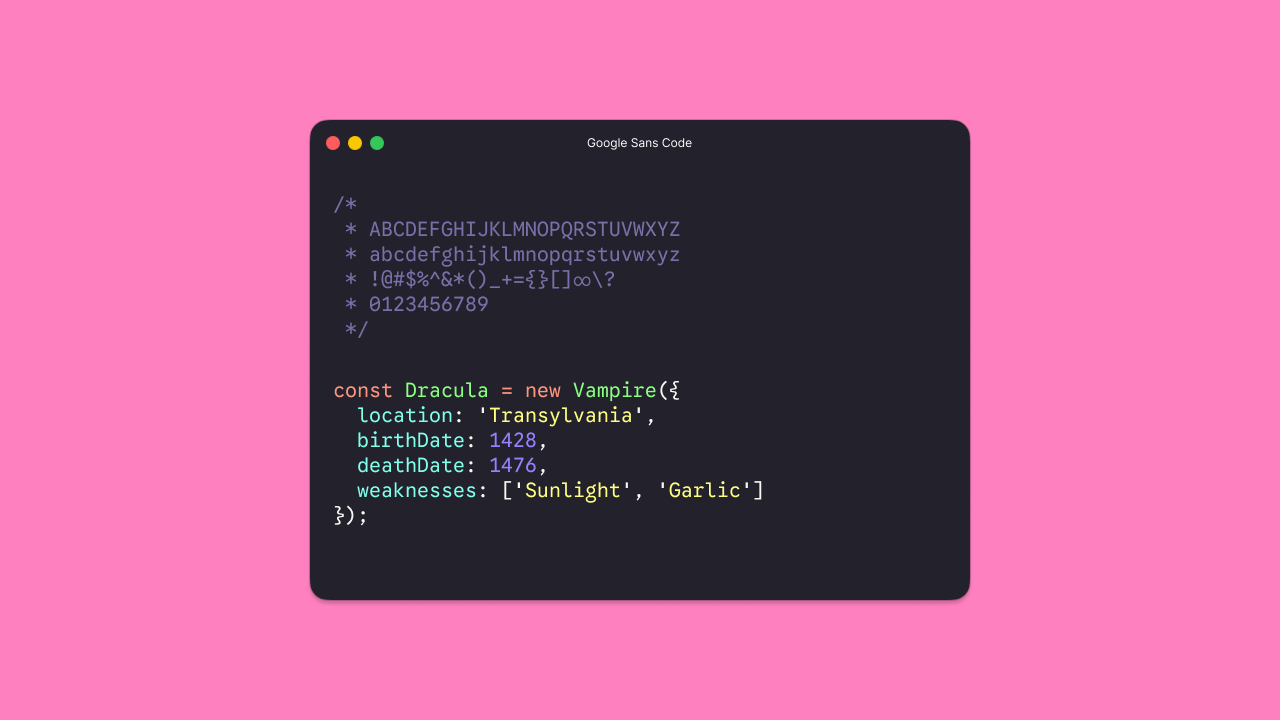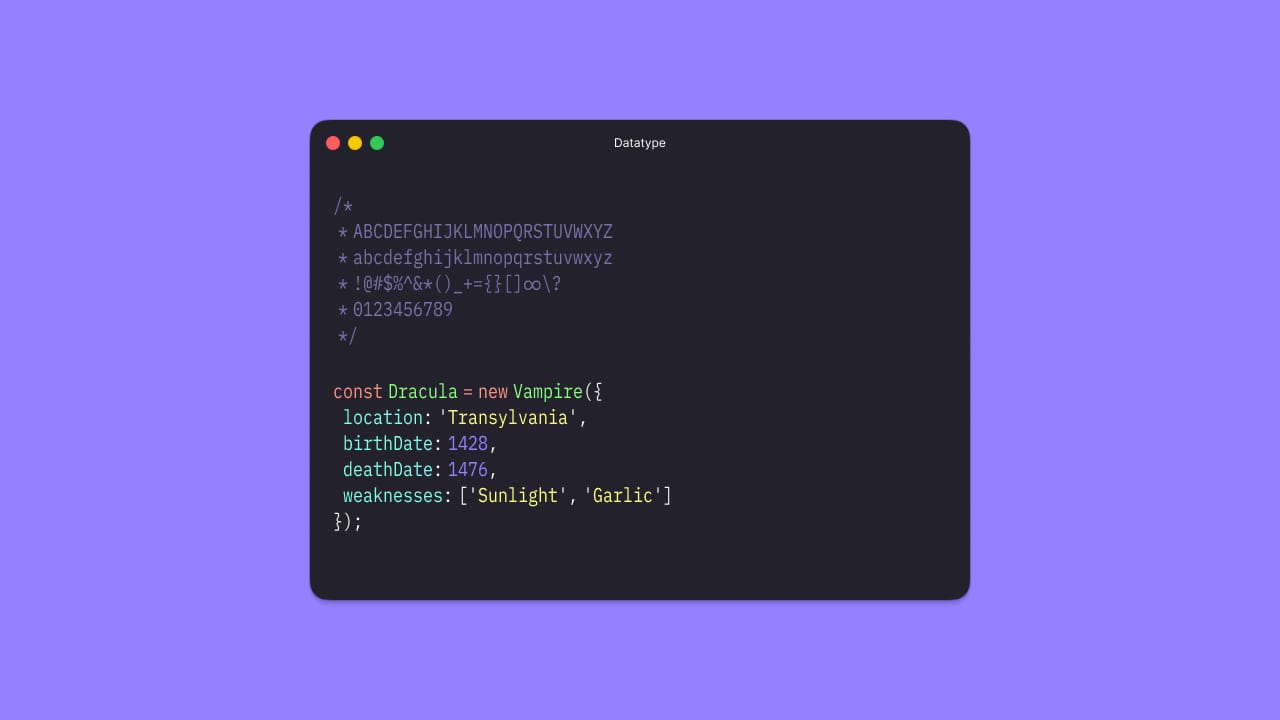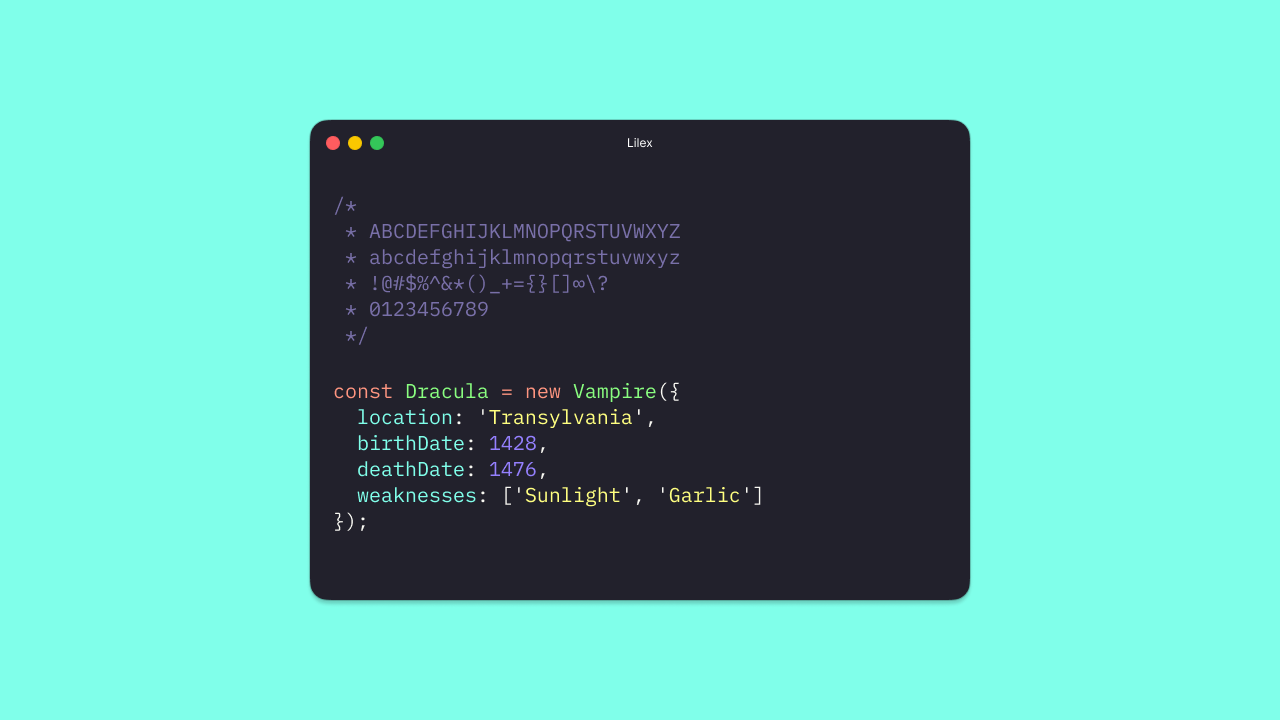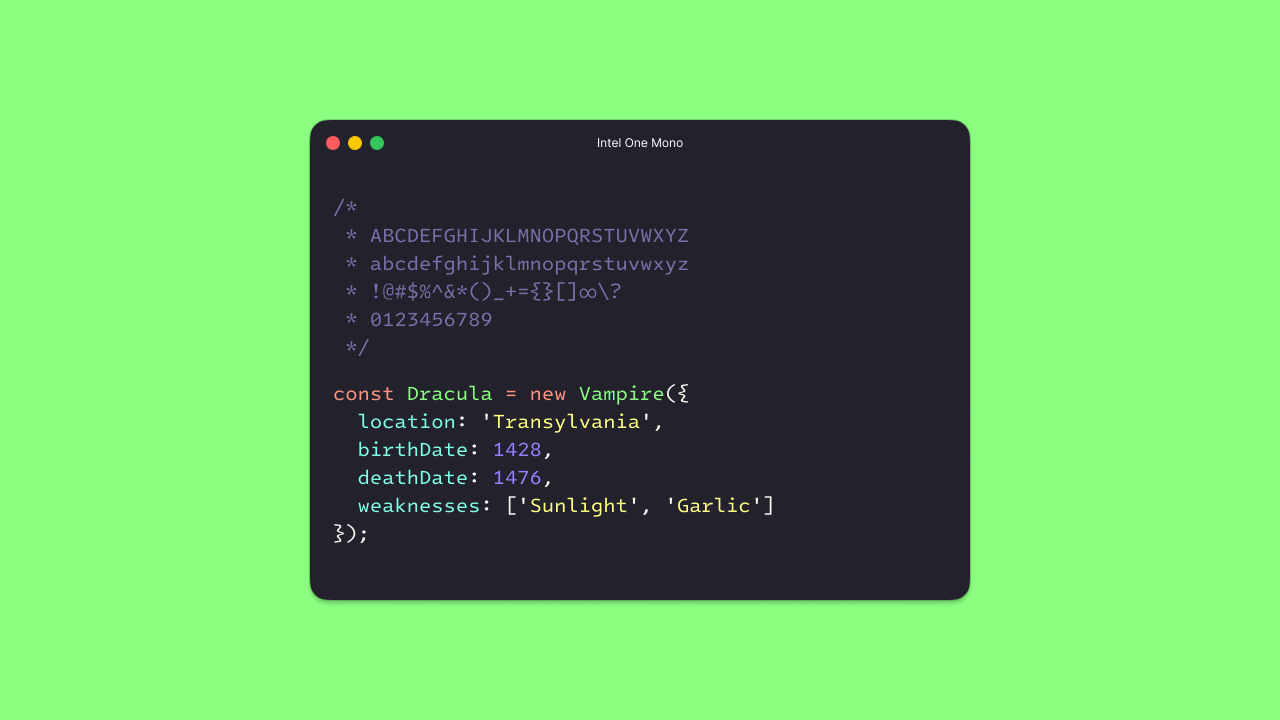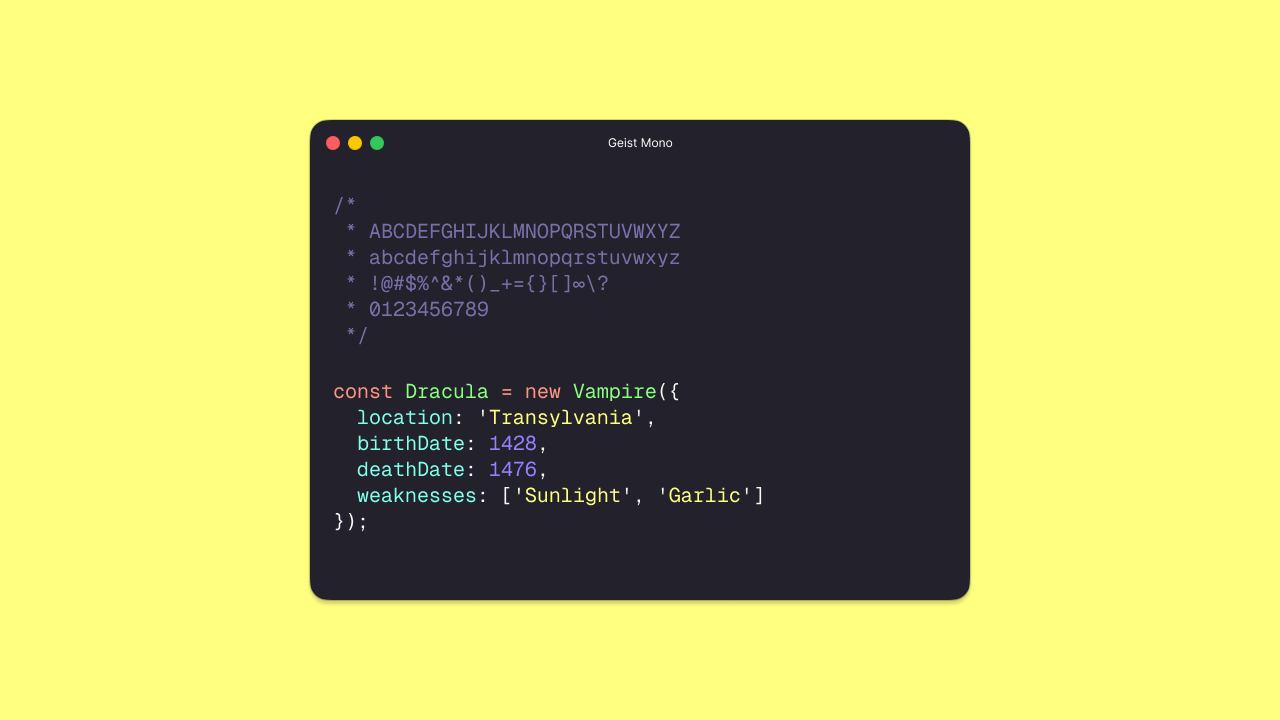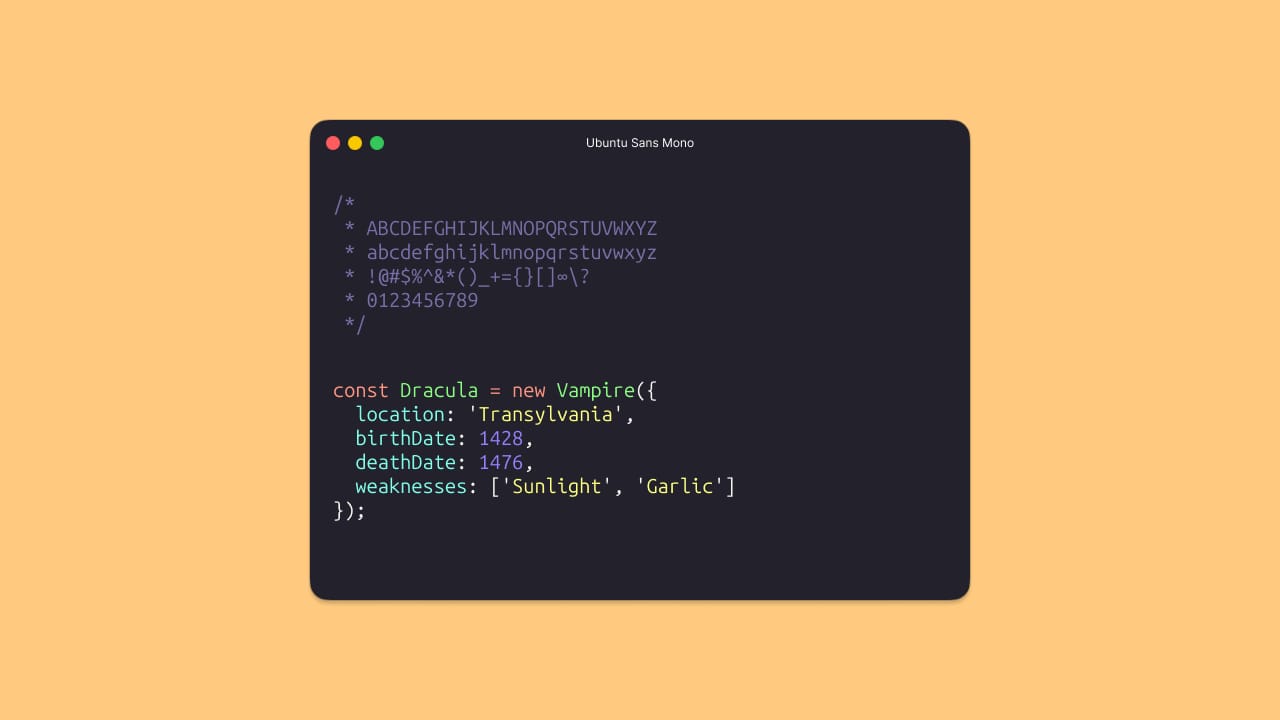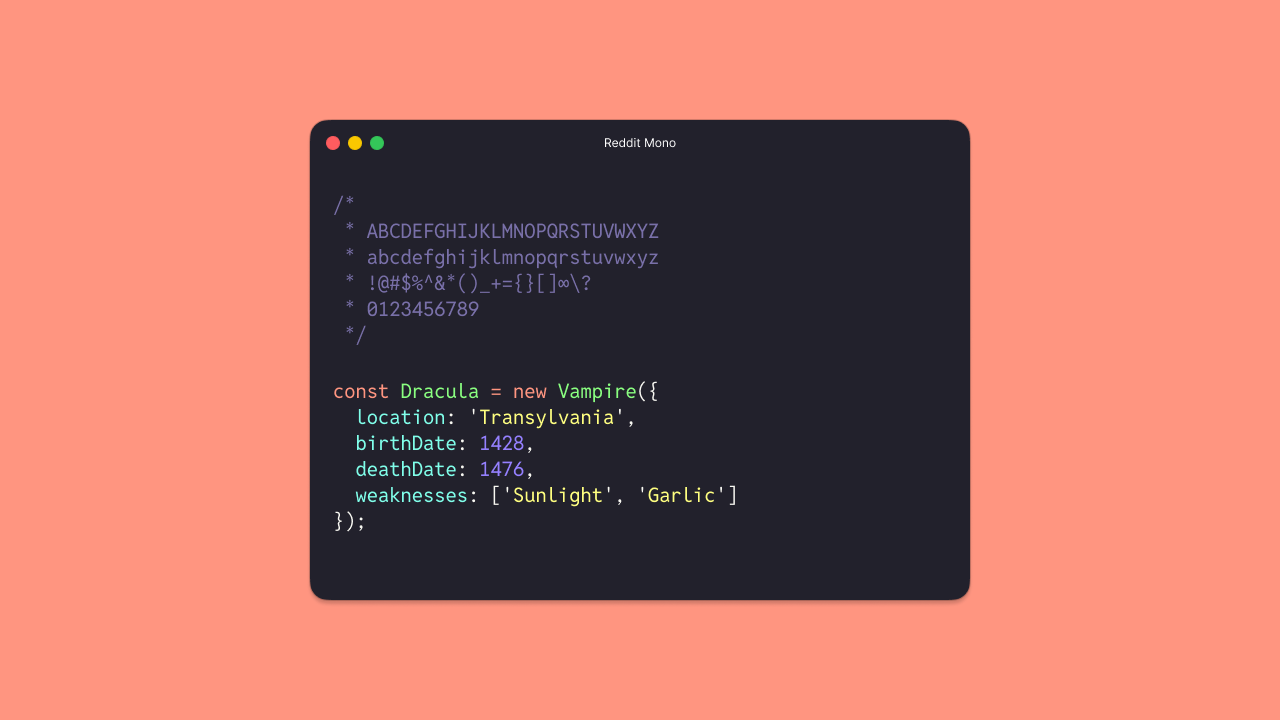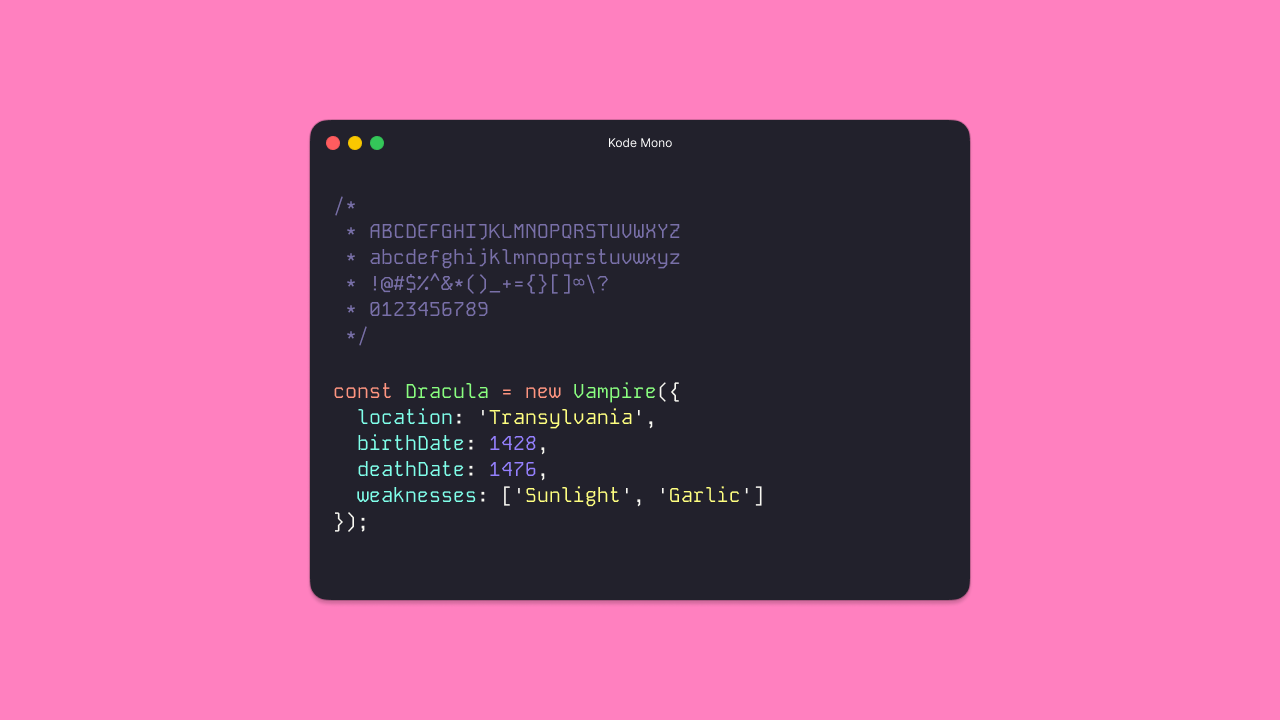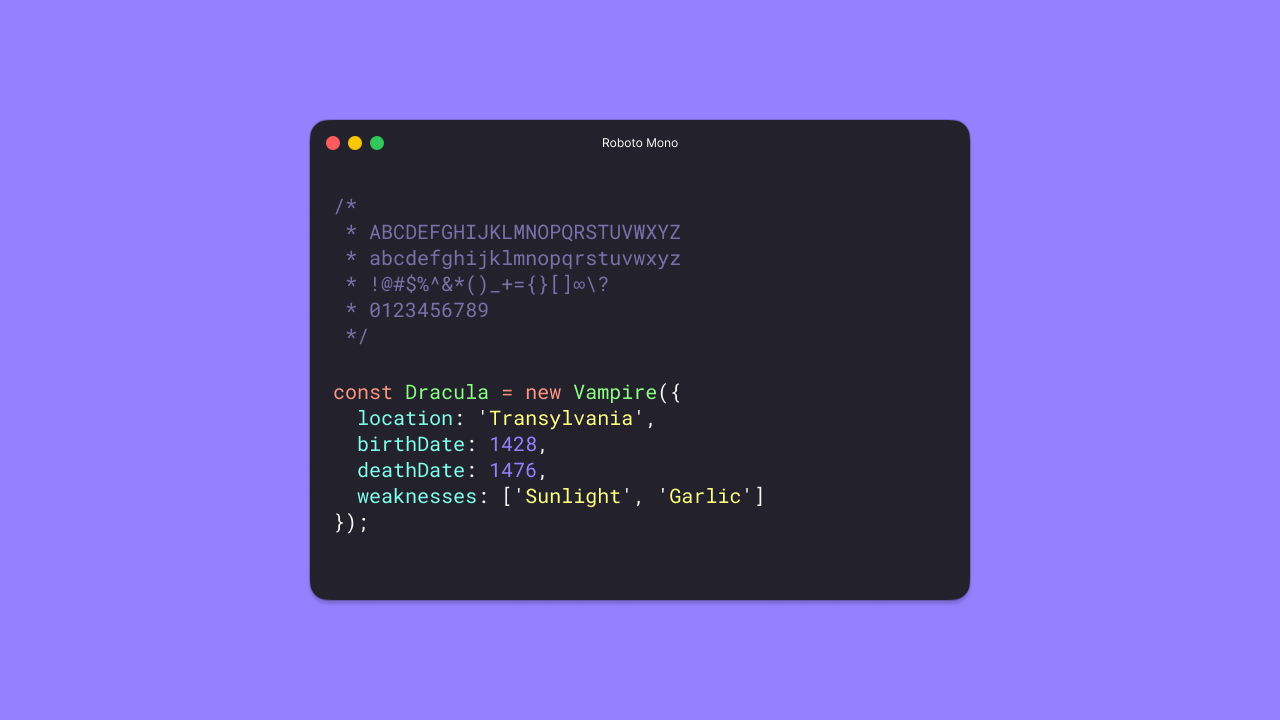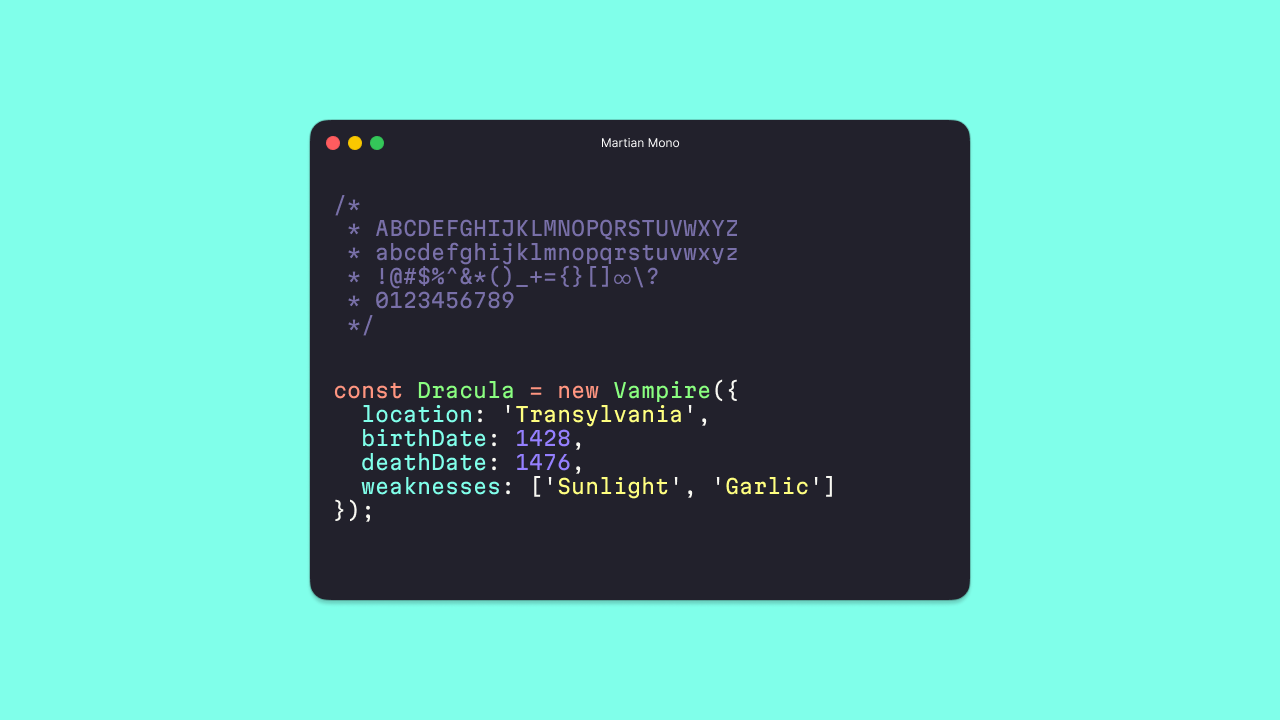
14 Best Fonts for Programming in 2026
Five years ago we put together 14 Best Free Fonts for Programming. Here are 14 more free variable monospace fonts for programming — ready for your editors, IDEs, terminals, and others.
§1. Google Sans Code
Google built this one for its own products — Gemini, Android Studio, and beyond. The letterforms stay crisp at small sizes, with open counters and clear distinction between characters that usually get confused. It is one of the few coding fonts with a dedicated monospace axis on top of weight, so you can fine-tune how "code-like" it feels.
Google Sans Code monospace coding font specimen
§2. Datatype
The newest font here, and one of the most interesting. Datatype lets you adjust both weight and width — rare for a monospace font. Frank Tisellano designed it with data-heavy interfaces in mind, but it works just as well in a terminal if you want something that does not look like every other coding font.
Datatype monospace coding font specimen
§3. Lilex
If you like IBM Plex Mono but wish it had ligatures, this is the one. Lilex builds on Plex's clarity and adds programming ligatures, Powerline symbols, and Greek support. It landed on Google Fonts recently, and the weight range covers everything from light comments to heavy keywords.
Lilex monospace coding font specimen
§4. Intel One Mono
Intel open-sourced this family with accessibility as the main goal — reducing eye strain and helping developers with low vision read code for longer stretches. Frere-Jones Type drew the letterforms, and the result is clean and understated. It will not steal the show, but your eyes will thank you after an eight-hour session.
Intel One Mono monospace coding font specimen
§5. Geist Mono
Vercel's type system made the jump from product UI to code editor. Geist Mono is neutral, well-proportioned, and pairs naturally with Geist Sans if you want the same typeface in your app and your terminal.
Geist Mono monospace coding font specimen
§6. Ubuntu Sans Mono
Ubuntu Mono has been a Linux staple for years. This is its successor — same humanist spirit, updated to match the newer Ubuntu Sans branding. Dalton Maag kept the reliable feel that terminal users already know.
Ubuntu Sans Mono monospace coding font specimen
§7. Reddit Mono
Reddit's open-source type system includes a monospace variant, and it is better than you might expect from a corporate font. Slightly rounded, friendly without being silly, and comfortable at 13px.
Reddit Mono monospace coding font specimen
§8. Kode Mono
This one leans into nostalgia — Isa Ozler drew inspiration from early computer displays and pixel-era typography. The surprise is how well it renders at modern sizes. A fun choice if you want your editor to feel a bit retro without sacrificing readability.
Kode Mono monospace coding font specimen
§9. Roboto Mono
Roboto Mono has been the default monospace on countless Android devices for years. The variable update makes it more flexible than ever. Neutral, familiar, and hard to argue with — sometimes boring is exactly what you need.
Roboto Mono monospace coding font specimen
§10. Martian Mono
Evil Martians' first open-source typeface — a monospaced companion to Martian Grotesk with a tall x-height and a brutalist edge. The standout feature is the dual axes: squeeze or stretch the width and dial the weight. Great if you like tweaking typography as much as you like tweaking config files.
Martian Mono monospace coding font specimen
§11. Chivo Mono
The monospace extension of the popular Chivo family. It inherits the sturdy grotesque skeleton of its sans-serif sibling and adds uniform widths for code. Popular for a reason — it just works everywhere.
Chivo Mono monospace coding font specimen
§12. Spline Sans Mono
The monospace counterpart to Spline Sans — rounded terminals, open apertures, and a warmer tone than most coding fonts. Softer personality, same clarity.
Spline Sans Mono monospace coding font specimen
§13. Azeret Mono
Designed by Displaay, Azeret Mono packs a wide weight range into a compact frame. Characters like 0 and O are easy to tell apart, and the narrow default width means more columns on screen.
Azeret Mono monospace coding font specimen
§14. Red Hat Mono
The monospace member of Red Hat's corporate type system. Geometric, confident, and carefully spaced — it shares DNA with Red Hat Text and Display. Dependable in both light and dark themes.
Red Hat Mono monospace coding font specimen
§What's your favorite one?